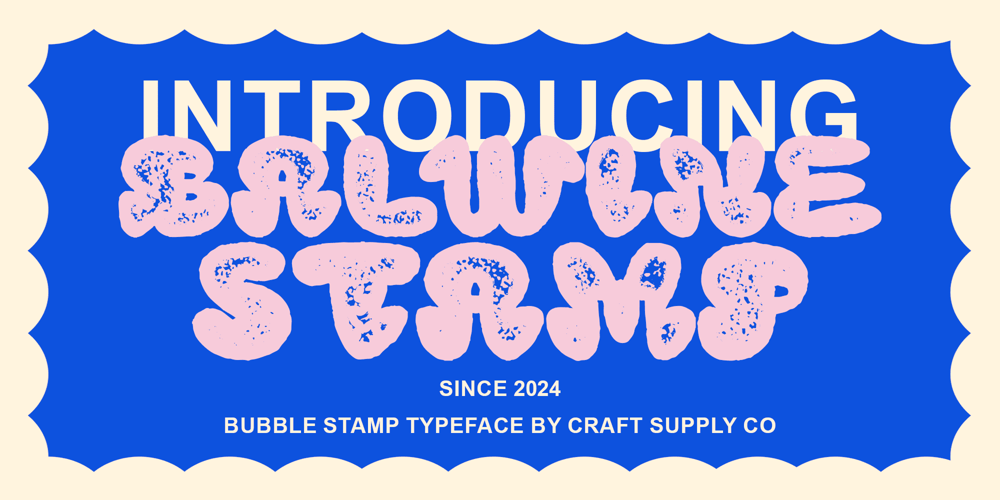
Balwine Stamp Font Family was designed by Trio Nazzar Saputra, Wahyu Hadi Yuana and published by Craft Supply Co. Balwine Stamp contains 2 styles and family package options. Balwine Stamp: Vintage-Inspired Bubble FontBubble-Inspired DesignBalwine Stamp boasts a playful bubble-inspired design, reminiscent of cheerful balloons. Each character exudes a sense of whimsy and fun, making it perfect for eye-catching display purposes.Stamp EffectThe font is enhanced with a charming stamp effect, adding a touch of vintage allure. This effect imbues each letter with a rustic and weathered appearance, evoking a nostalgic vibe reminiscent of retro design.Vintage Balloon InspirationInspired by the joyful and carefree nature of balloons, This font captures the essence of vintage aesthetics. Its bubbly shapes and stamp effect transport viewers to a whimsical and nostalgic era.Versatile ApplicationDespite its vintage-inspired design, This font is versatile in its application. From posters and invitations to logos and branding, it adds a delightful touch of retro charm to any design project.Playful Vintage VibesThis font combines the playful charm of bubble-inspired design with the nostalgic allure of vintage stamps. With its versatile application and retro appeal, it adds a touch of whimsy and nostalgia to any design endeavor. Let Balwine Stamp infuse your projects with joyful vintage vibes and playful sophistication.